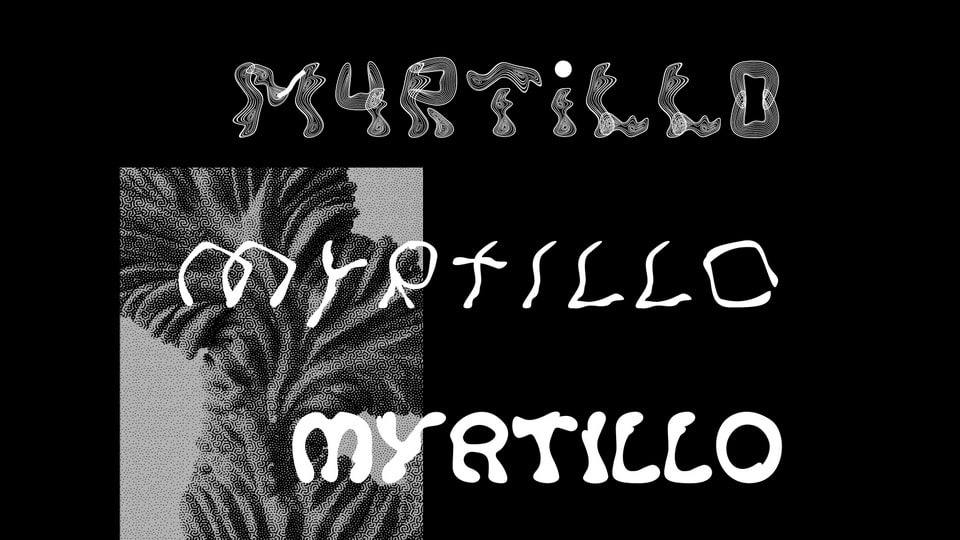
Download Plantasia Myrtillo font, a creative display typeface inspired by the Myrtillocactus geometrizans. Plantasia is a typeface family created by the students of the G5 Communication 360 class